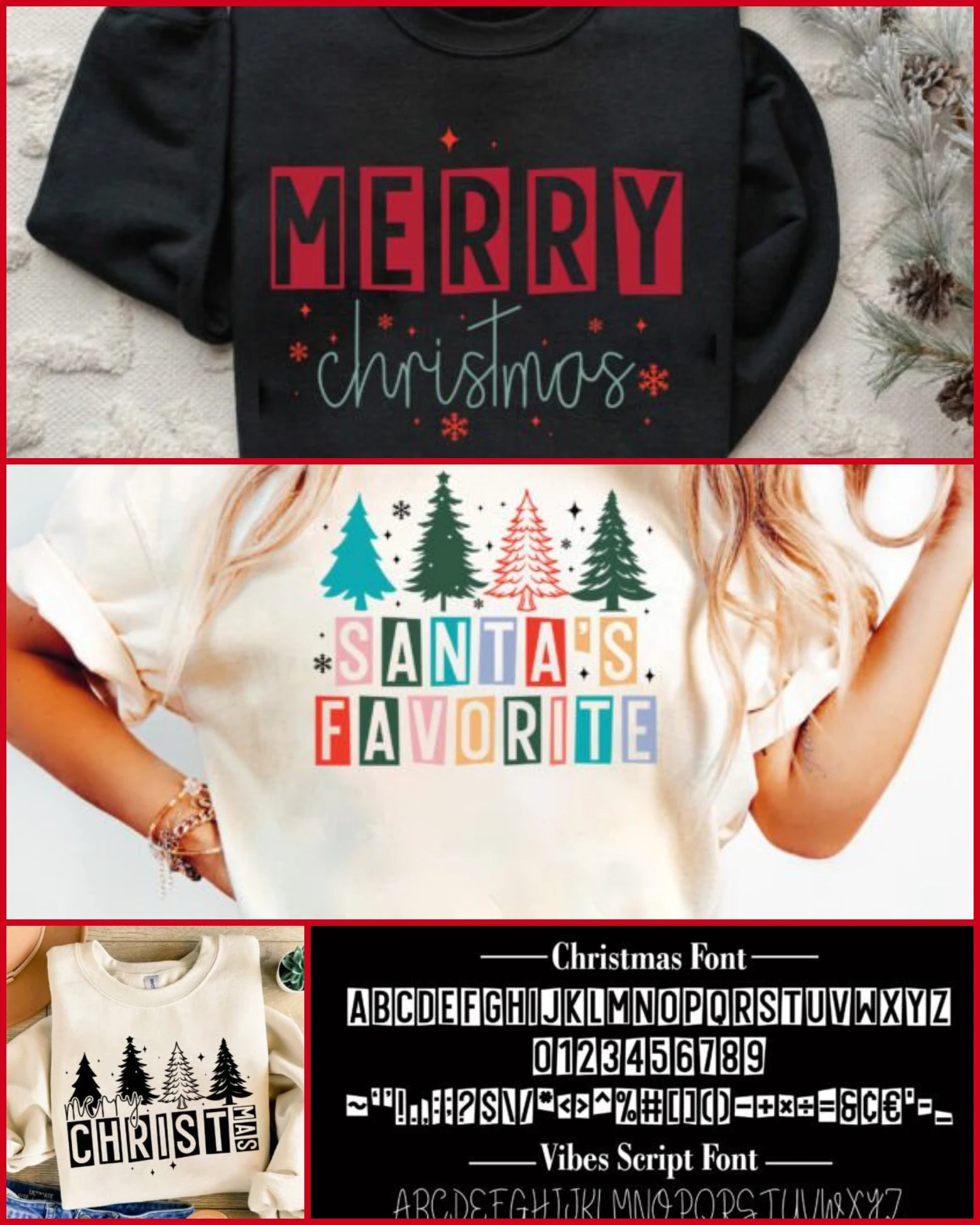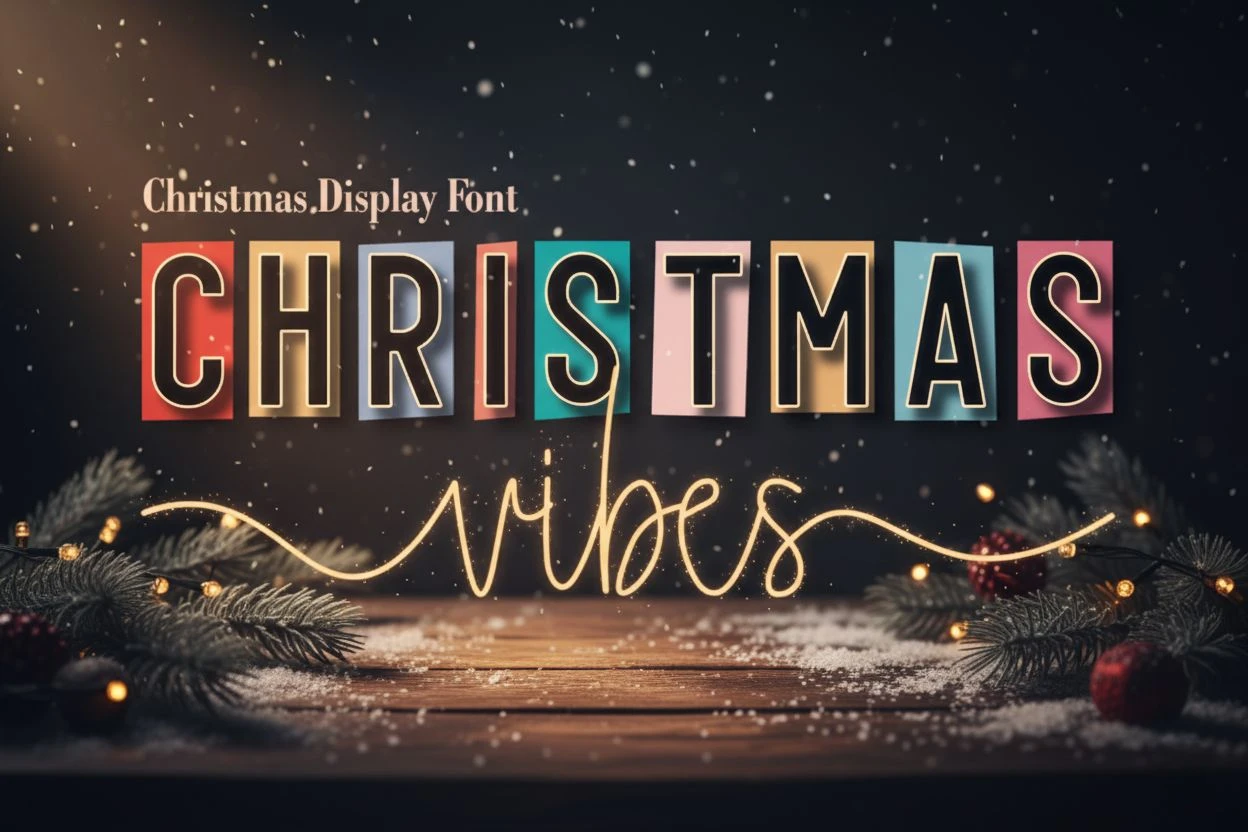
Christmas Vibes Duo is a bold holiday display font designed to bring festive energy to every creative project. The main style features strong shapes with sharp edges that make Christmas titles look powerful and expressive, while the cursive variation adds a warm handwritten charm. This duo works beautifully for Cricut crafts, sublimation prints, greeting cards, gift tags and seasonal branding. Each letter carries a cheerful Christmas mood, helping you create eye-catching designs for posters, packaging, apparel and decorative signage. Whether you want a striking headline or a smooth script accent, Christmas Vibes Duo gives you the versatility to build joyful holiday typography with ease. Add this pair to your creative toolkit and make your winter projects stand out.